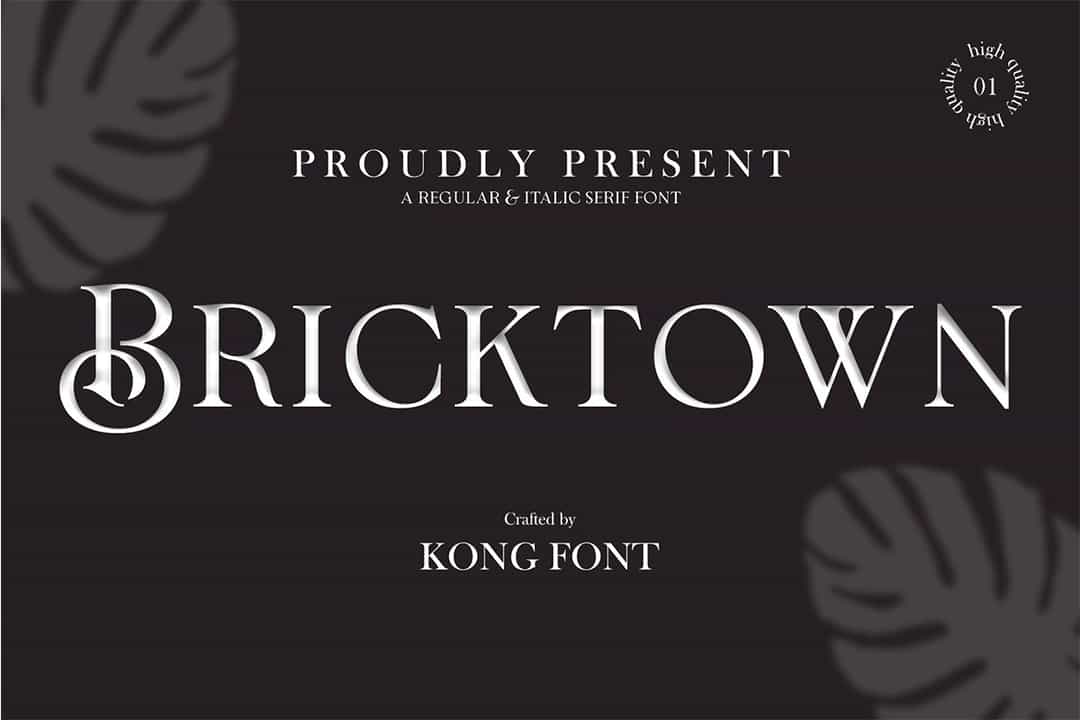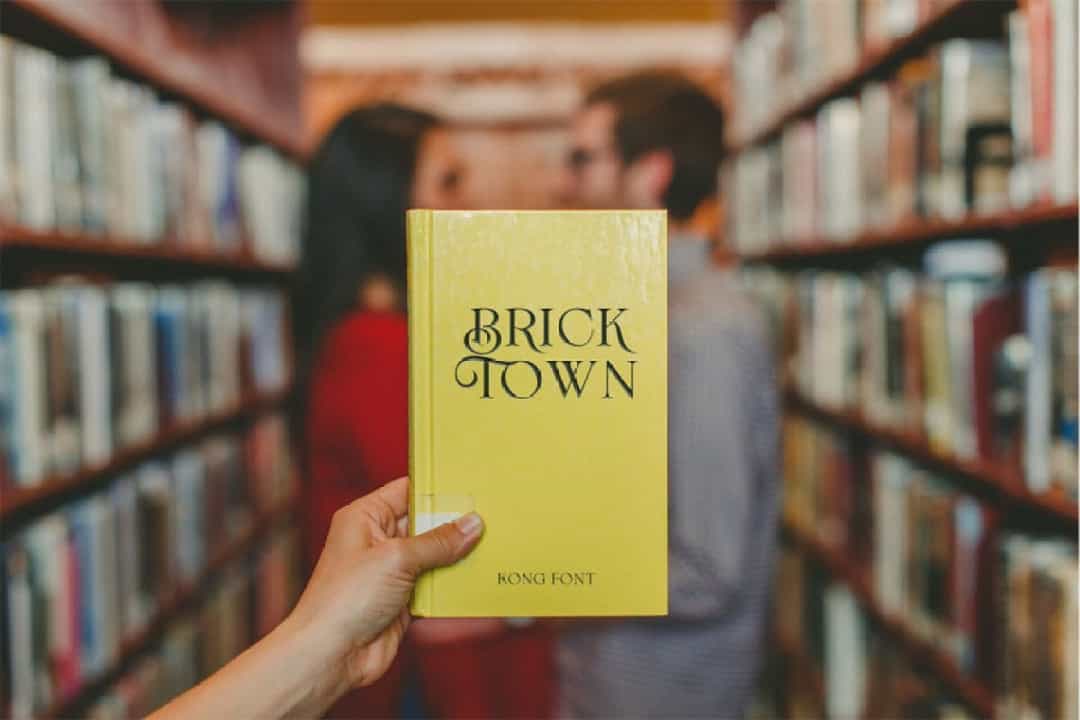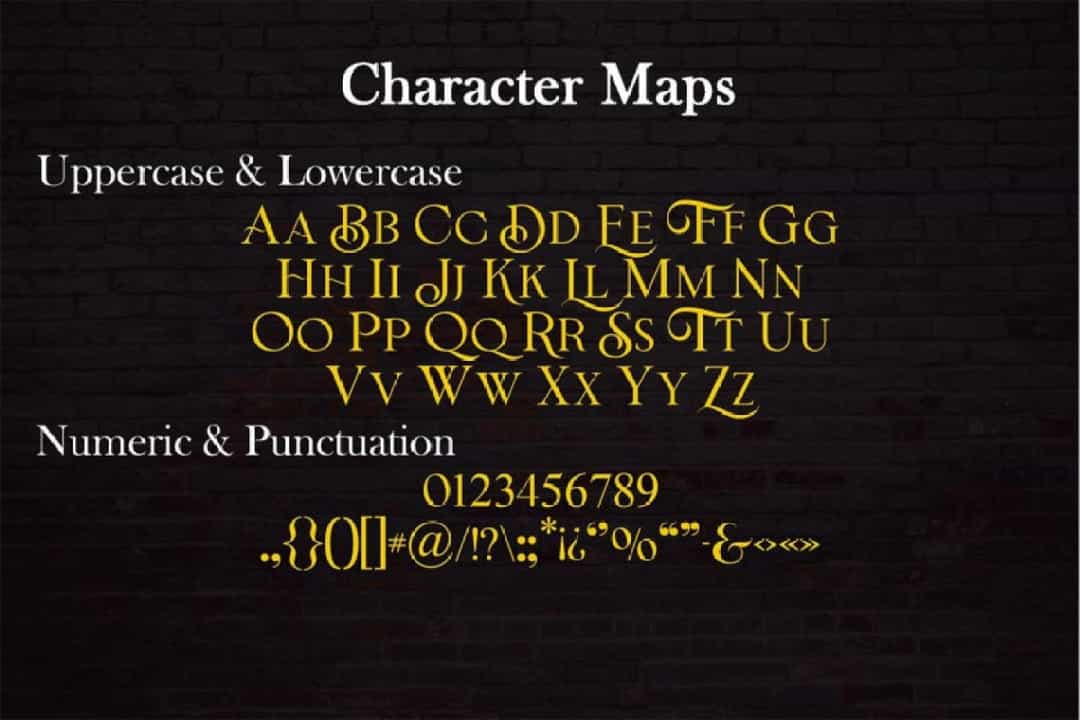
Bricktown is an elegant serif font with a twist, it is packaged with some ligatures to give it an artsy feeling. Designed and shared by fontkong, you can use it and give your weddings, stationery, social media posts and homemade greeting cards a touch of realism using Bricktown.